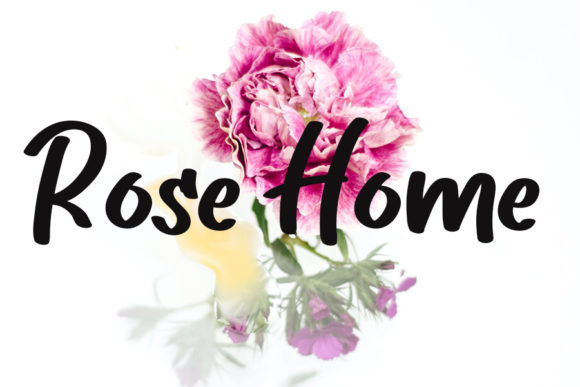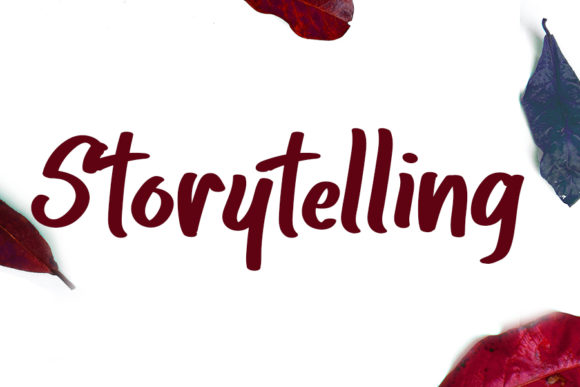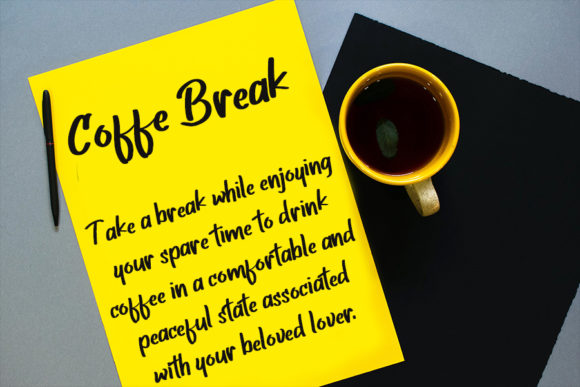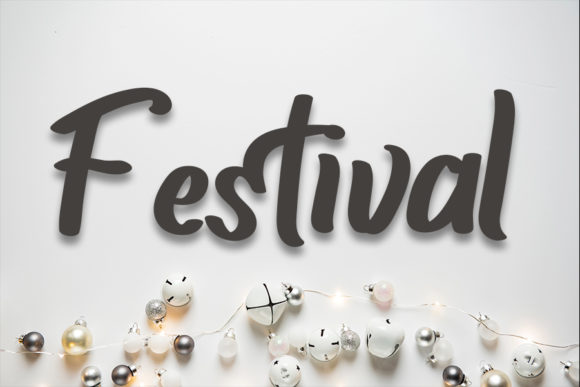
Introduction to Rusttonalt Font
Do you remember that moment when you stumbled upon the perfect font for your creative project? The one that made your design pop and left you wondering how you ever managed without it? For designers, that moment is a game-changer. And for those who’ve discovered the Rusttonalt Font, that moment has arrived.
This flowing, thick lettered handwritten font is a treasure trove of creative possibilities. With its high-quality design and versatility, it’s no wonder designers are falling in love with Rusttonalt Font. Whether you’re working on a free download or a high-end commercial project, this font is a valuable addition to your design resource arsenal.
Key Features of Rusttonalt Font
- High-quality design resource ideal for creative projects requiring a unique touch
- Features a transparent background, allowing for seamless integration with any design
- Designed to be highly legible, making it perfect for use in a variety of creative projects
- Includes multiple font styles and weights, offering versatility and flexibility
Honest Review: Rusttonalt Font
As a designer, I’m always on the lookout for high-quality design resources that can elevate my creative projects. Recently, I stumbled upon the Rusttonalt Font, and I must say, it’s been a game-changer for me.
Here are some of the things that work well with the Rusttonalt Font:
- ✨ Unique aesthetic: The Rusttonalt Font has a distinctive, industrial look that’s perfect for projects that need a touch of grit and sophistication.
- ✨ High quality: The font is incredibly crisp and clear, making it perfect for both digital and print applications.
- ✨ Transparent background: This font is available in a variety of formats, including one with a transparent background, making it easy to use in complex design compositions.
- ⚠️ Limited character set: The Rusttonalt Font has a limited character set, which may not be suitable for projects that require a wide range of characters.
- ⚠️ Not ideal for body text: Due to its unique aesthetic, the Rusttonalt Font is not ideal for use as body text, but rather as a headline or title font.
Overall, I’m thoroughly impressed with the Rusttonalt Font. It’s a valuable addition to any designer’s toolkit, and I highly recommend it for creative projects that require a touch of sophistication and style.
Experiment with different font sizes, colors, and combinations to achieve the desired look. Use the Rusttonalt Font in conjunction with other design elements to create a visually appealing and cohesive design.
The Rusttonalt Font is ideal for use in logos, branding materials, business cards, and other creative projects that require a high-quality and professional font. Its transparent background makes it perfect for use on images and other design elements.